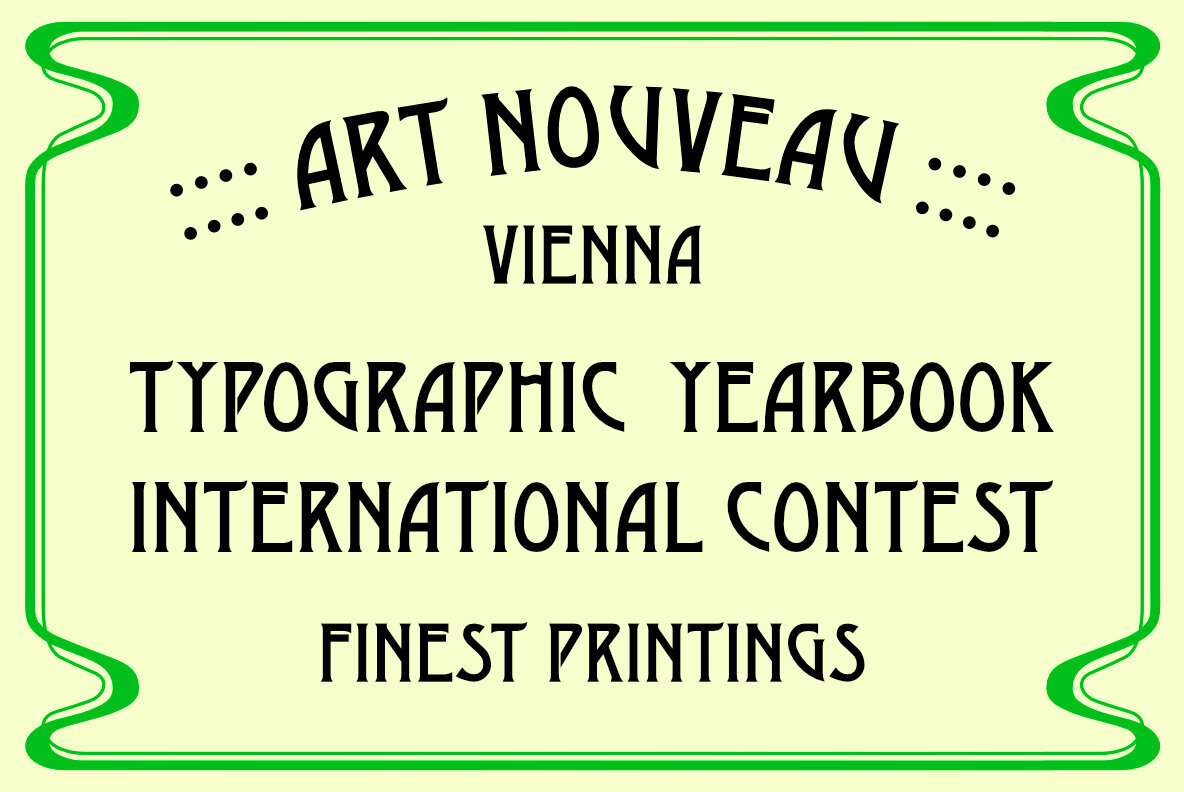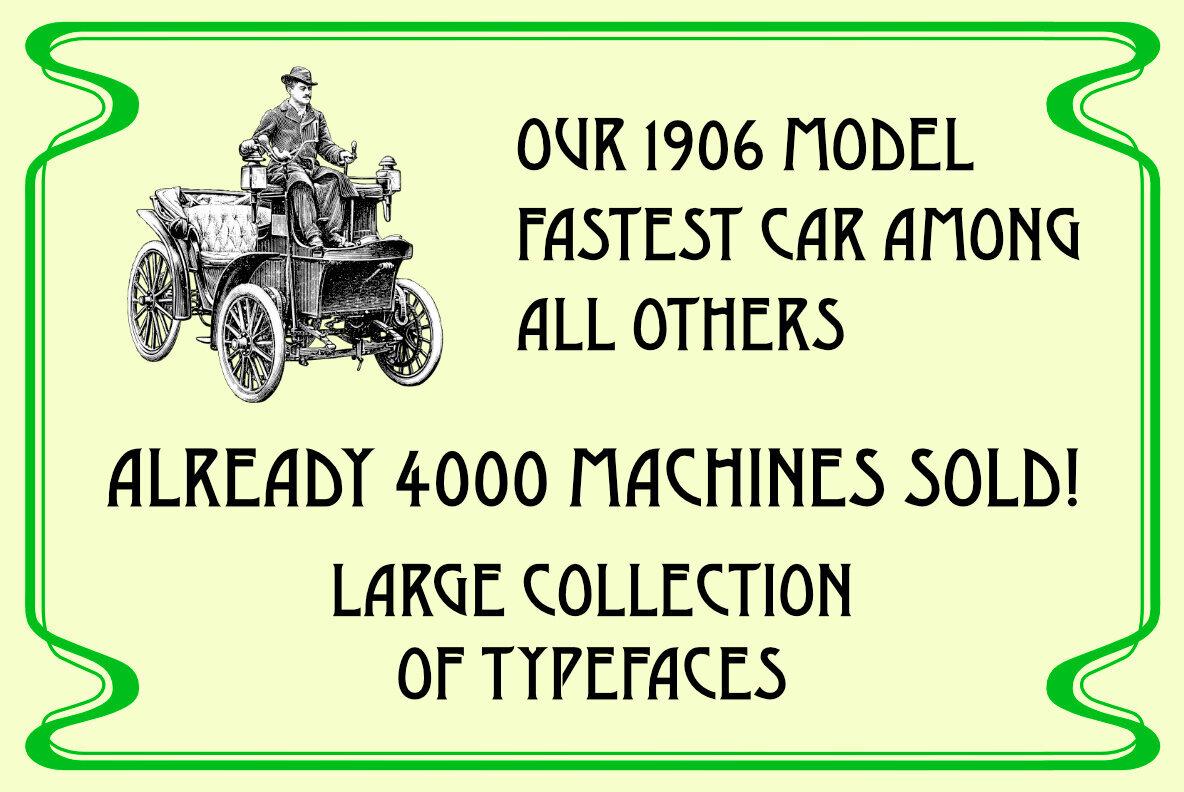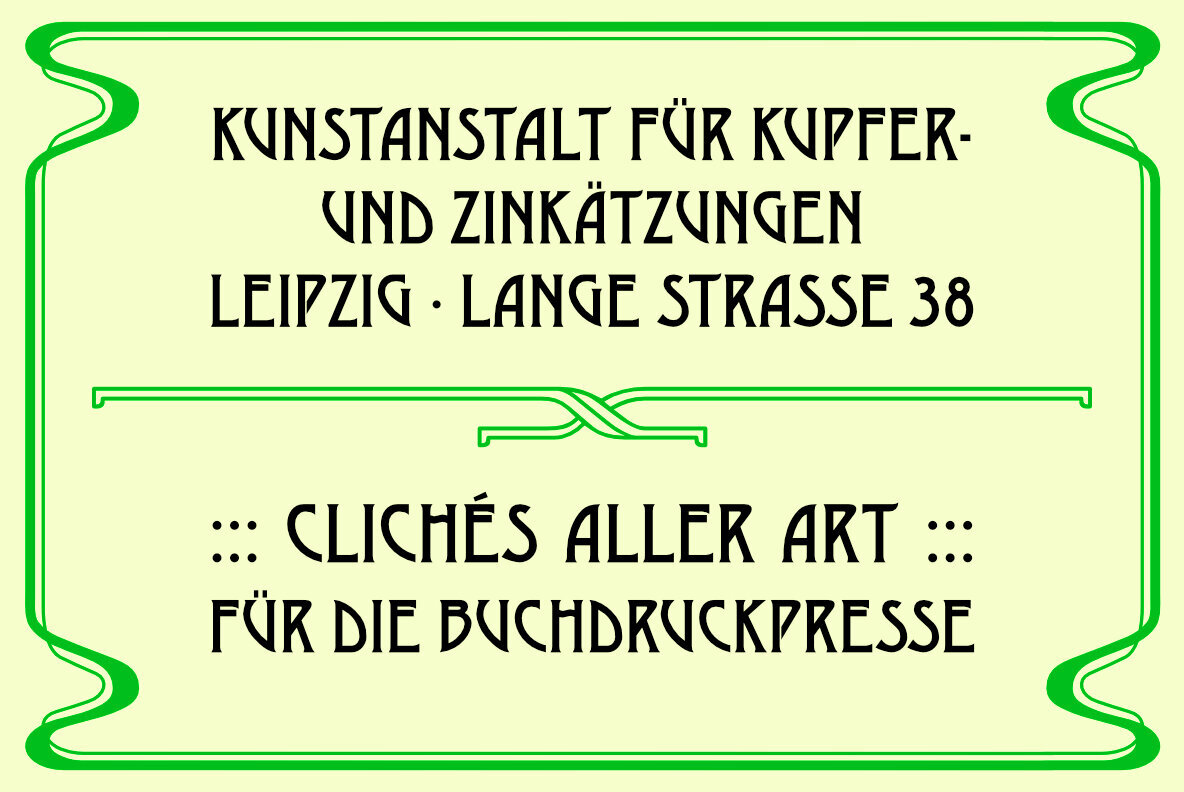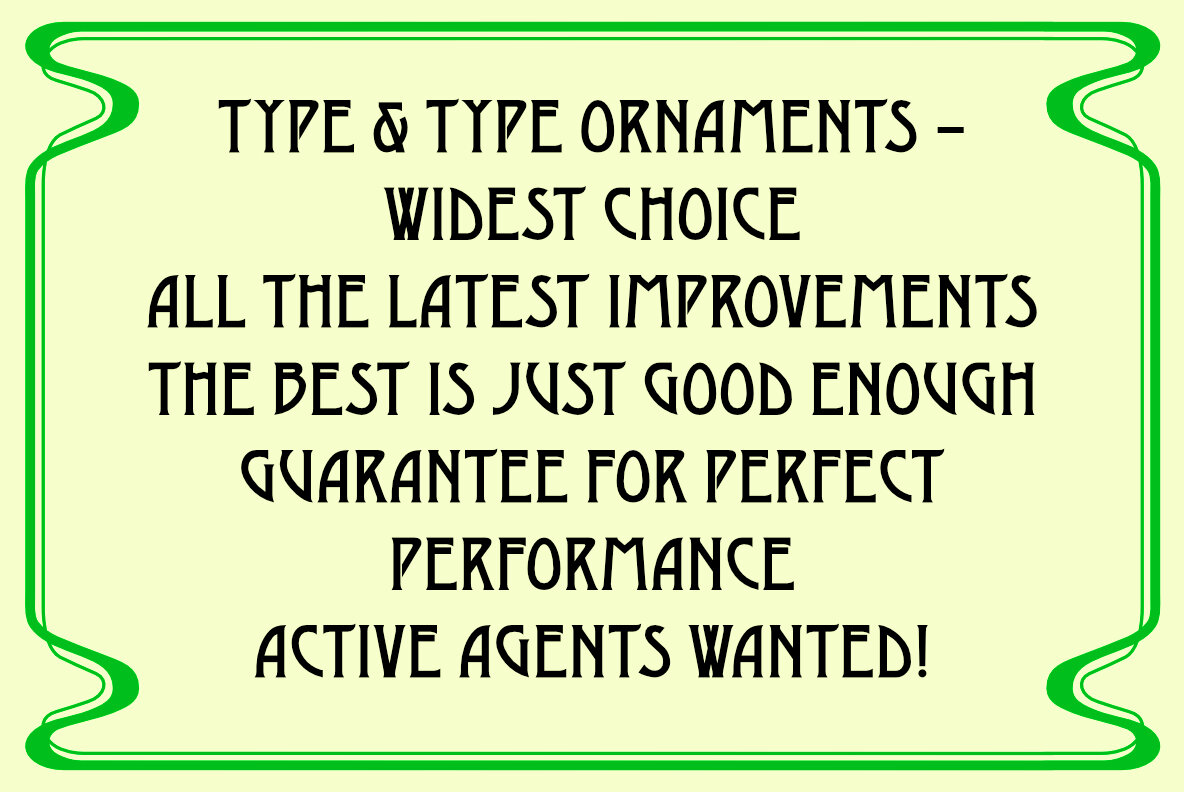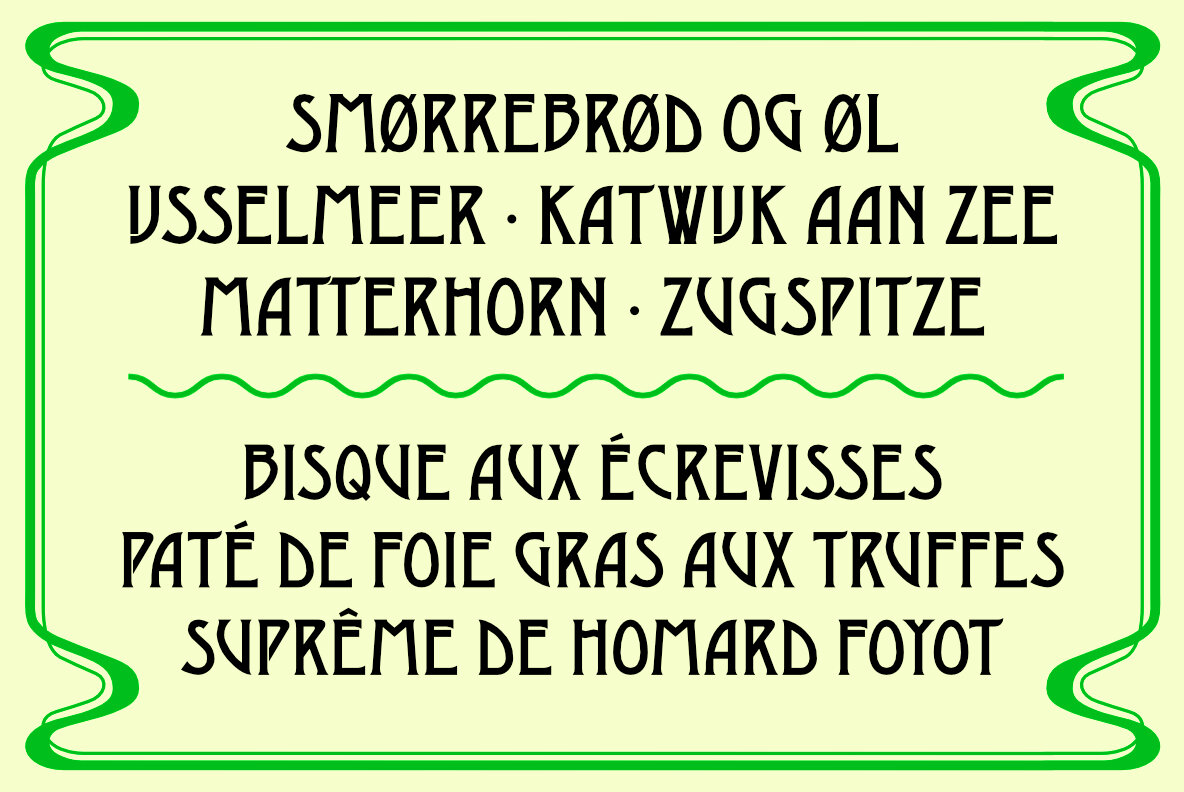
RMU Viennese Font
Viennese RMU Regular
Inspired by the classic Desdemona type from Viennese foundry Brendler & Sons, RMU Viennese by RMU Typedesign offers a fresh, solid interpretation. This stunning all-caps font captures the spirit of Art Nouveau, infusing your designs with elegance and vintage flair.RMU Viennese Typeface